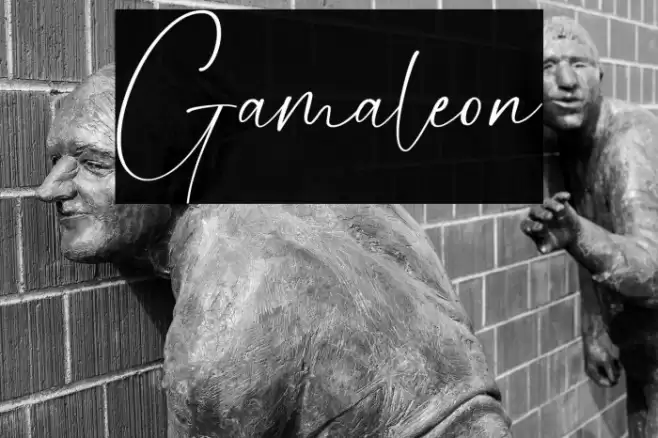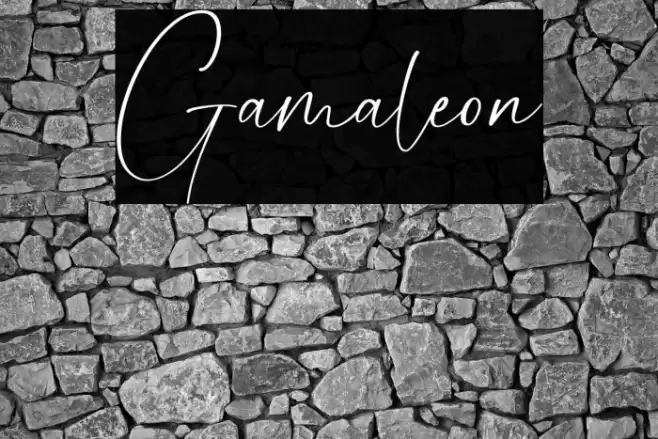
Gamaleon Font
Gamaleon Description
This font features a delicate and flowing script style, characterized by its elegant and smooth curves. The uppercase letters are tall and slender, with a slight slant that adds a dynamic feel. The lowercase letters are more intricate, with loops and flourishes that enhance its decorative appeal. The numerals maintain the same graceful style, ensuring consistency throughout. Special characters are thoughtfully designed to match the overall aesthetic, making this font suitable for artistic and expressive projects.
A graceful and elegant script font with flowing curves and decorative flourishes from Regular fonts.
- Proposed Projects: Ideal for wedding invitations, greeting cards, branding, and logo design where a touch of elegance is desired.
- Use Case: Logos, Invitations, Artistic projects